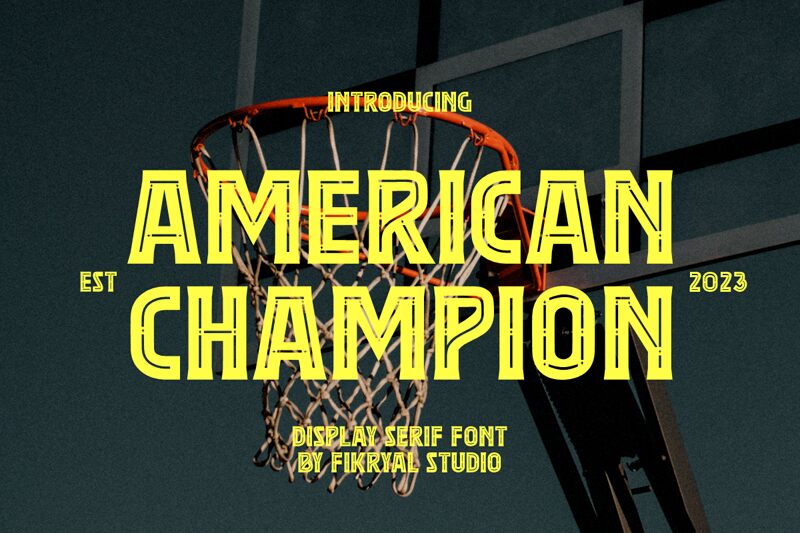
American Champion, crafted by Fikryal Studio, stands as a bold testament to the power of type in commanding attention. The font's robust stature radiates confidence, while its condensed letters pack a punch, making every word seem momentous. This display typeface brings an air of importance and strength to any visual composition.
Ideal for headlines and branding that require impact, American Champion excels in contexts where a strong statement is paramount. From sports branding to poster design, its assertive presence works wonders in captivating an audience and conveying a message with authority.